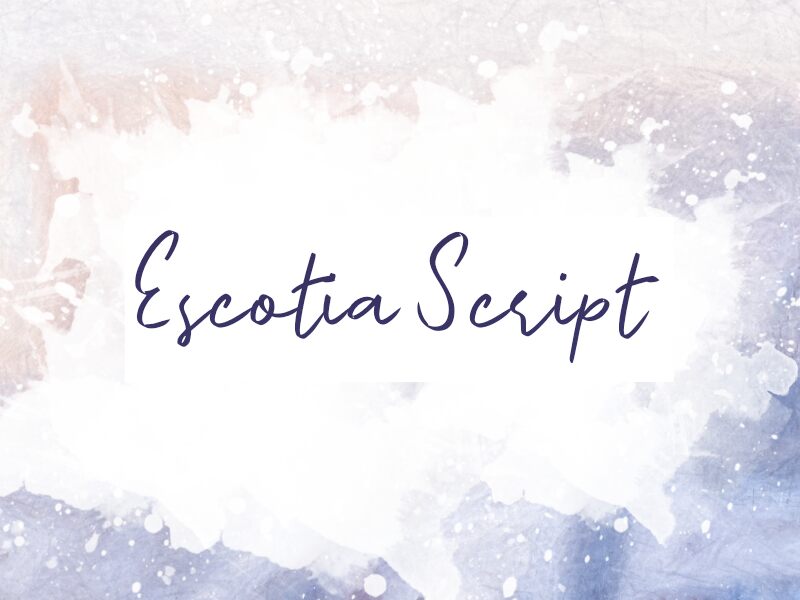
Escotia Script
Escotia Script by wep is a stunning handwritten font that exudes elegance and sophistication. Its semi-light weight and semi-condensed width make it perfect for projects that require a touch of refined beauty without being too heavy-handed. This font is suitable for a wide range of purposes, including wedding invitations, greeting cards, book covers, and branding materials. Its flowing script style adds a personal touch to any project and elevates the overall aesthetic. With Escotia Script, you can create designs that are both stylish and memorable.